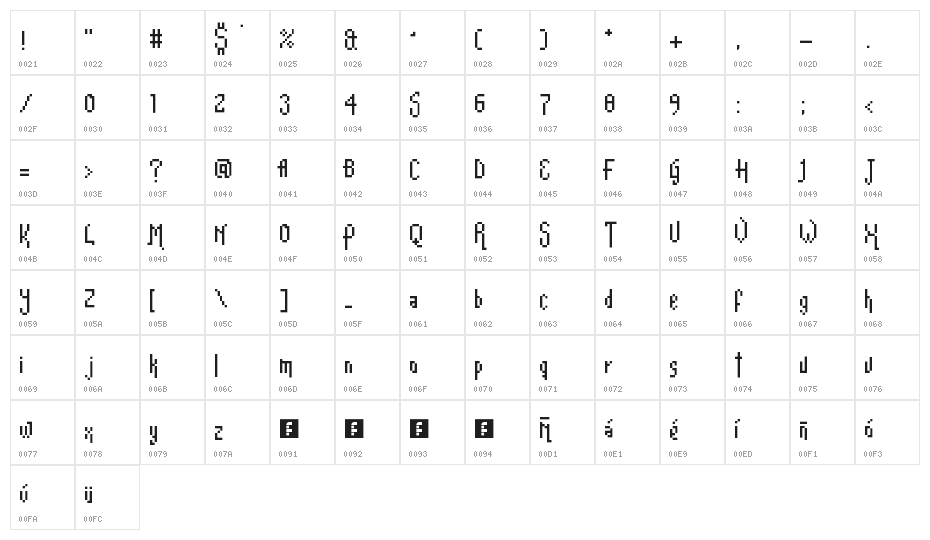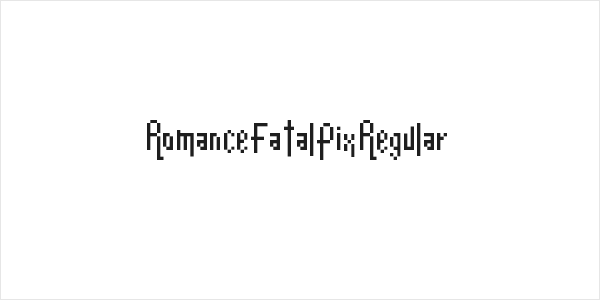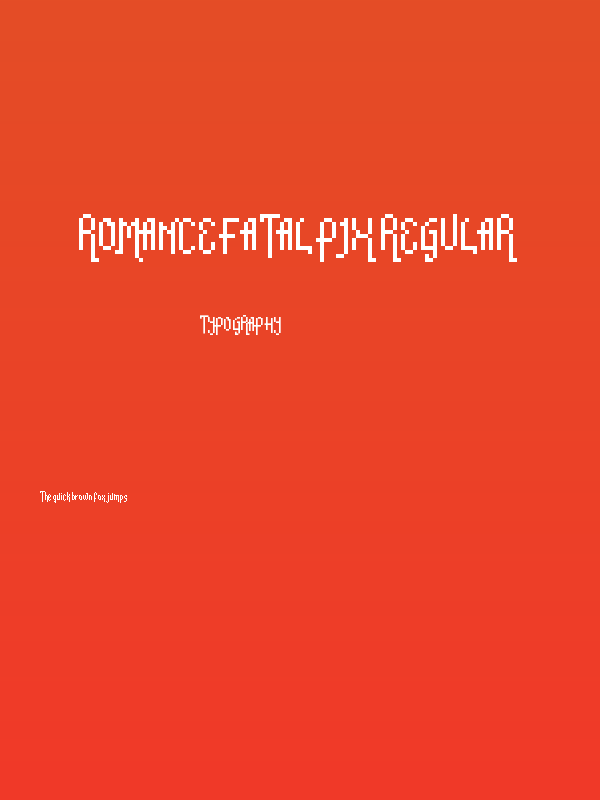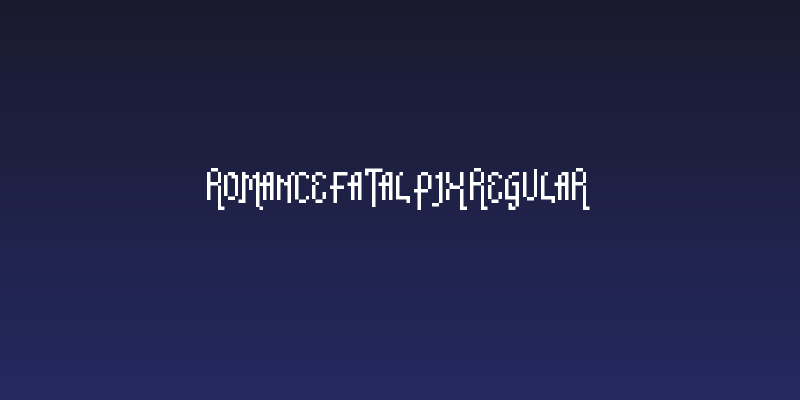
Romance Fatal Pix Regular Font
Romance Fatal Pix Regular Description
This font features a pixelated, digital aesthetic reminiscent of early computer graphics. The characters are composed of small square blocks, giving it a retro, 8-bit style. Each letter and number is distinct, with consistent blocky shapes that maintain legibility despite the unconventional design. The uppercase and lowercase letters share a similar structure, with slight variations in height and width. The numerals and special characters follow the same pixelated pattern, ensuring a cohesive look across all glyphs. This font is ideal for projects that aim to evoke nostalgia or a tech-inspired theme.
| Overall Style | Retro, Digital |
| Use Case | Logos, Posters, Digital Art |
| Proposed Projects | Ideal for video game graphics, retro-themed posters, digital art, and tech-inspired branding. |